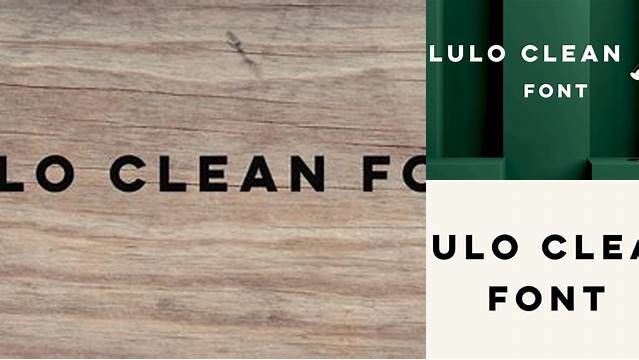
Hey everyone! Are you on the hunt for a fresh, modern font that won't break the bank? Look no further! This guide is all about the Lulo Clean One font, a fantastic, free typeface perfect for a variety of design projects. We're going to dive deep into everything you need to know, from where to snag your Lulo Clean One font free download to how to use it like a pro. Get ready to elevate your designs with this sleek and versatile font! Let's get started, shall we?
H2: Unveiling the Features of the Lulo Clean One Font Family
Let's talk about what makes the Lulo Clean One font so special. This font is known for its clean, modern aesthetic. The design is straightforward, with smooth lines and a sense of simplicity that makes it incredibly versatile. This makes it ideal for a variety of design applications. One of the coolest things about the Lulo Clean One font is its readability. It's designed to be easy on the eyes, even at smaller sizes, so it's great for body text, headlines, and everything in between. Think about the types of projects where you might use it. Website design, graphic design, branding, and even print materials all look great with the Lulo Clean One font. You can experiment with different weights and styles to find the perfect look for your project. Because it's a clean font, it doesn't have a lot of extra flourishes or decorative elements. This means it works well in various contexts, from minimalist designs to more complex layouts. Its versatility lets you keep your designs looking fresh and modern without too much effort. A modern font gives a sense of professionalism, contemporary style, and timeless appeal. It also is highly adaptable. The best fonts are the ones that bring a level of clarity and sophistication to the design.
H3: Examining Lulo Clean One Font's Style and Characteristics
The Lulo Clean One font is a sans-serif typeface, which means it doesn't have those little decorative strokes at the end of each letter (called serifs). This gives it a clean, modern look. The key characteristics include a geometric design and a subtle elegance. The letterforms are well-proportioned, and the spacing is carefully considered to enhance readability. You'll notice a consistent thickness in the strokes, which adds to its overall harmony and visual appeal. This contributes to its overall readability. A consistent look is very important. The use of a consistent, simple design gives a sense of uniformity that's pleasing to the eye. The overall characteristics create a visual language that is both informative and engaging. The clean lines and uncluttered design contribute to its versatility. You will see it is a popular choice among designers. They value its straightforward aesthetic, making it suitable for a broad range of design projects. The Lulo Clean One font is a great choice if you want a font that is both stylish and functional.
H2: Lulo Clean One Font in Graphic Design: Best Practices
Alright, let's talk about how to put the Lulo Clean One font to work in your graphic design projects. This font is super versatile, so you can use it for just about anything. But, like any font, it looks best when used strategically. Think about pairing it with a complementary font. If you're using Lulo Clean One font for headlines, consider a serif font for body text to create visual contrast and enhance readability. Experiment with different weights and sizes. Using bold or italic versions can help emphasize key information and create visual hierarchy. A well-chosen font combination will elevate your design from good to great. Consider the overall tone and message of your design. Does the font match the mood you're trying to convey? Think about the context. A clean, modern font like Lulo Clean One font works well for websites, posters, and branding materials. Using the right font is crucial for your design's success. Don't forget to pay attention to kerning and leading, which are the spaces between letters and lines, respectively. Adjust these settings to optimize readability and visual appeal. This can make a big difference. By following these best practices, you can harness the full potential of the Lulo Clean One font and create stunning designs that capture your audience's attention!
H3: Lulo Clean One Font for Branding and Logo Design
The Lulo Clean One font is a great choice for branding and logo design. Its clean, modern aesthetic makes it ideal for creating a professional and memorable brand identity. Because it's easy to read, it's a good choice for logo designs. Start by considering the overall look and feel of your brand. The Lulo Clean One font has a friendly and approachable vibe, making it suitable for various industries. Experiment with different weights and styles to find the perfect look for your logo. A slightly bolder weight might work well for a logo, while a lighter weight might be better for supporting text. This will create a balanced and visually appealing design. Make sure your logo is versatile. It should look good in different sizes and on various backgrounds. The Lulo Clean One font is usually very adaptable for this. Consider the kerning and tracking, or the spacing between letters. Fine-tuning these settings will help optimize readability and make the logo look polished. By using the Lulo Clean One font strategically, you can create a brand identity that's both stylish and memorable, helping your brand stand out from the crowd. The font's clean lines and straightforward design make it a great option for logos, website headers, and other branding materials.
H2: Integrating Lulo Clean One Font into Website Design
Website design is a perfect place to showcase the Lulo Clean One font. Its clean and modern look makes it a great fit for modern websites. Start by using it for headlines and subheadings. The font is great for attracting attention and guiding your visitors. Remember to make sure your text is readable at various sizes. Experiment with different font sizes and weights to make your content easy to scan. Ensure your site remains accessible to all users. Consider using it for body text, but be mindful of the overall design. It may not be the most ideal choice for very long blocks of text. Optimize your website for different devices. Ensure that the Lulo Clean One font renders correctly on desktops, tablets, and smartphones. This will result in a consistent look and feel across all platforms. Test your website thoroughly. You want to avoid any display issues. By integrating the Lulo Clean One font effectively into your website design, you can create a visually appealing and user-friendly online experience. Using this font, your website will look clean and easy to use.
H3: Lulo Clean One Font: Typography Tips for Websites
When using the Lulo Clean One font on your website, keep these typography tips in mind. Firstly, create a clear visual hierarchy. This is done by using different font sizes, weights, and styles. Use the Lulo Clean One font for headers and subheaders. Use a different, perhaps more readable, font for body text. Secondly, pay close attention to line height and letter spacing. Adjust these settings to ensure optimal readability and visual appeal. A slight adjustment in the line height can greatly improve the look. Thirdly, ensure your website is responsive. Your font should look good on any device, including desktops, tablets, and mobile phones. Test your website on various devices to ensure a consistent look. Fourthly, use the font consistently throughout your website. This will create a cohesive and professional look. Finally, always consider the user experience. Make sure your content is readable and easy to scan. It should be easy for your visitors to find the information they need. By following these tips, you can make the most of the Lulo Clean One font and create a website that is both visually appealing and user-friendly.
H2: Conclusion: Unleashing the Power of Lulo Clean One Font
Alright, folks! We've covered everything you need to know about the Lulo Clean One font. From where to get your Lulo Clean One font free download to how to use it in your designs. This versatile, clean font can elevate your design projects. It's easy to read. It's perfect for various applications. You can take your designs to the next level. So go out there and start creating! Use the power of the Lulo Clean One font!